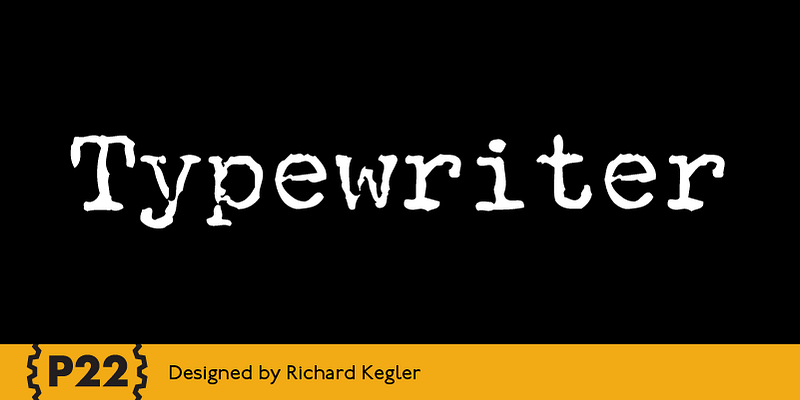
P22 Typewriter Font Free Download is a classic monospaced typewriter font that mimics the old-school, mechanical look of typewriter keys. With its vintage charm and consistent character spacing, this font is perfect for creating retro designs, posters, logos, invitations, and any project that requires a nostalgic touch.
P22 Typewriter Font is highly legible and versatile, ideal for both display text and smaller body copy. It works seamlessly with popular design tools like Adobe Illustrator, Photoshop, Figma, and Canva, offering flexibility for both print and digital media.